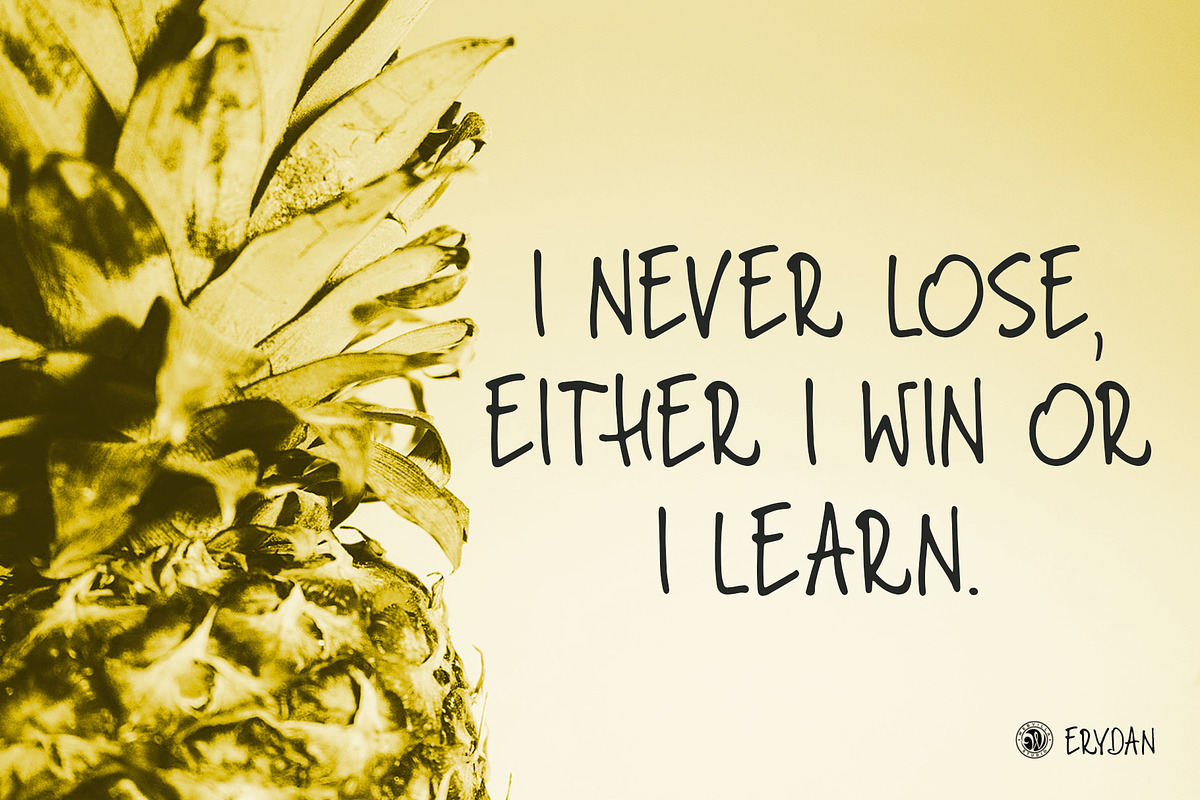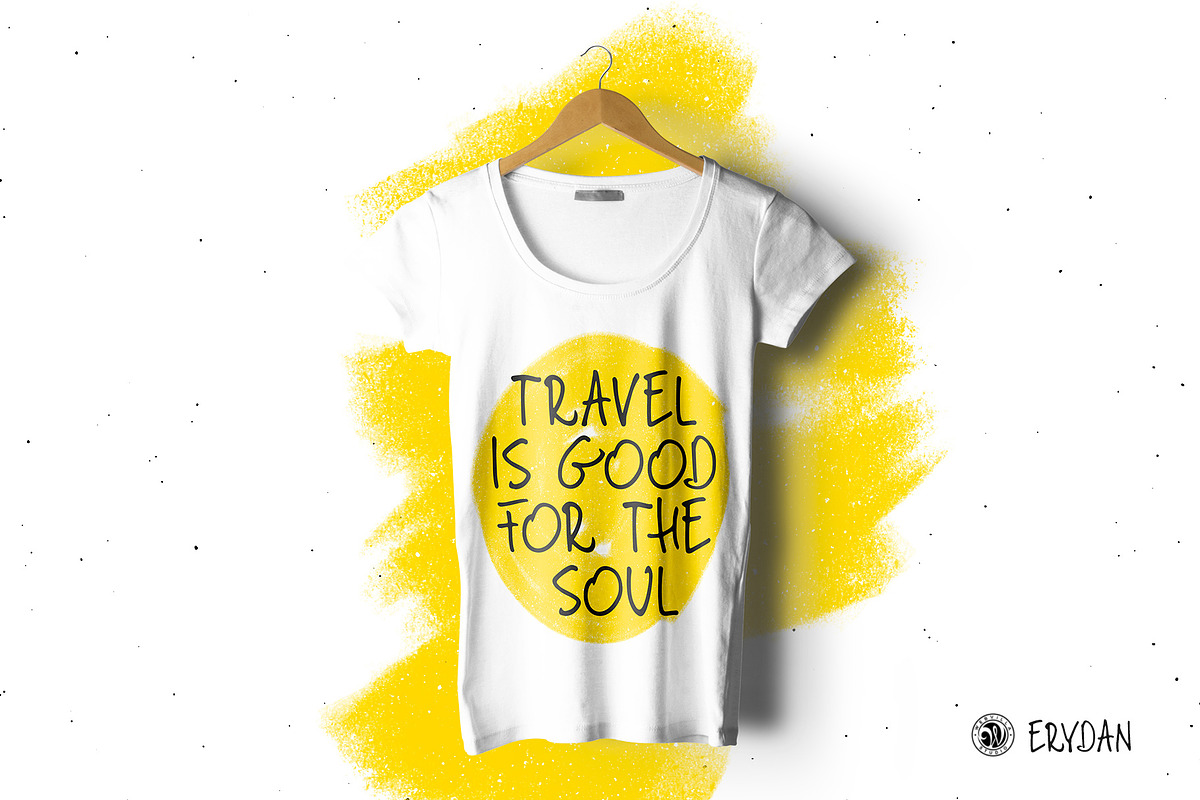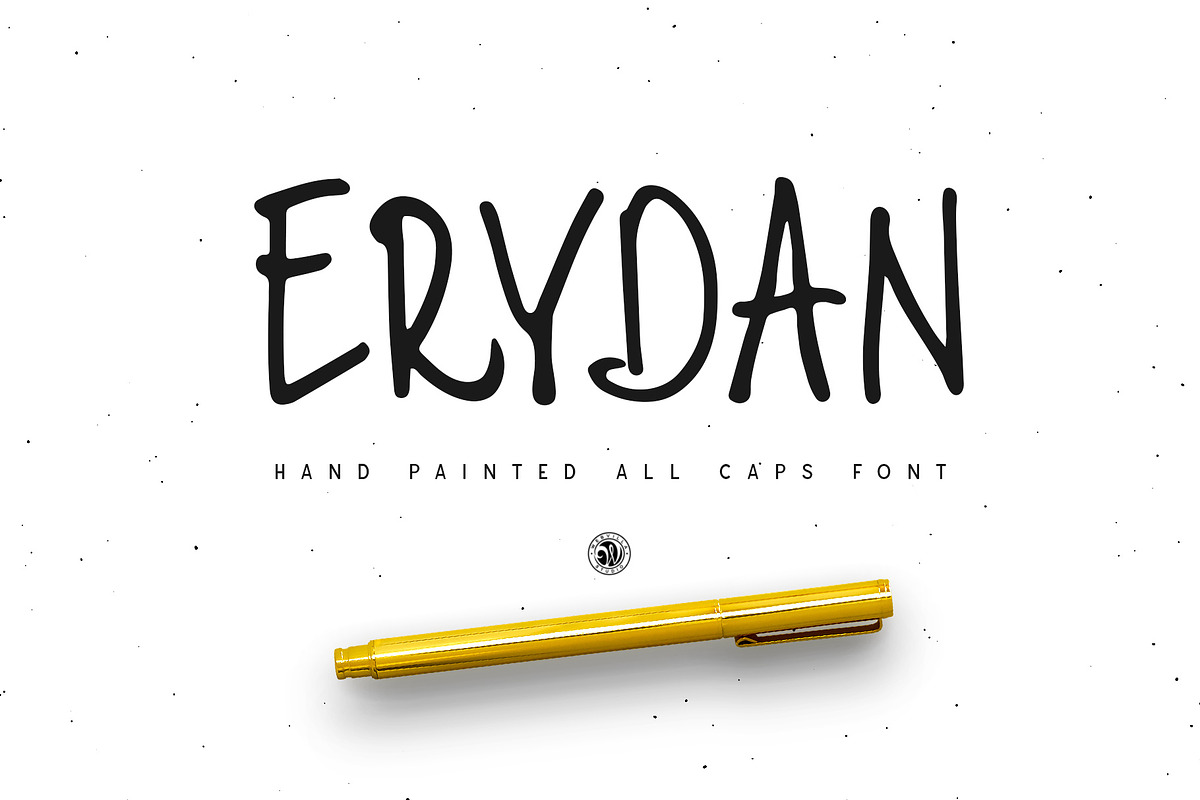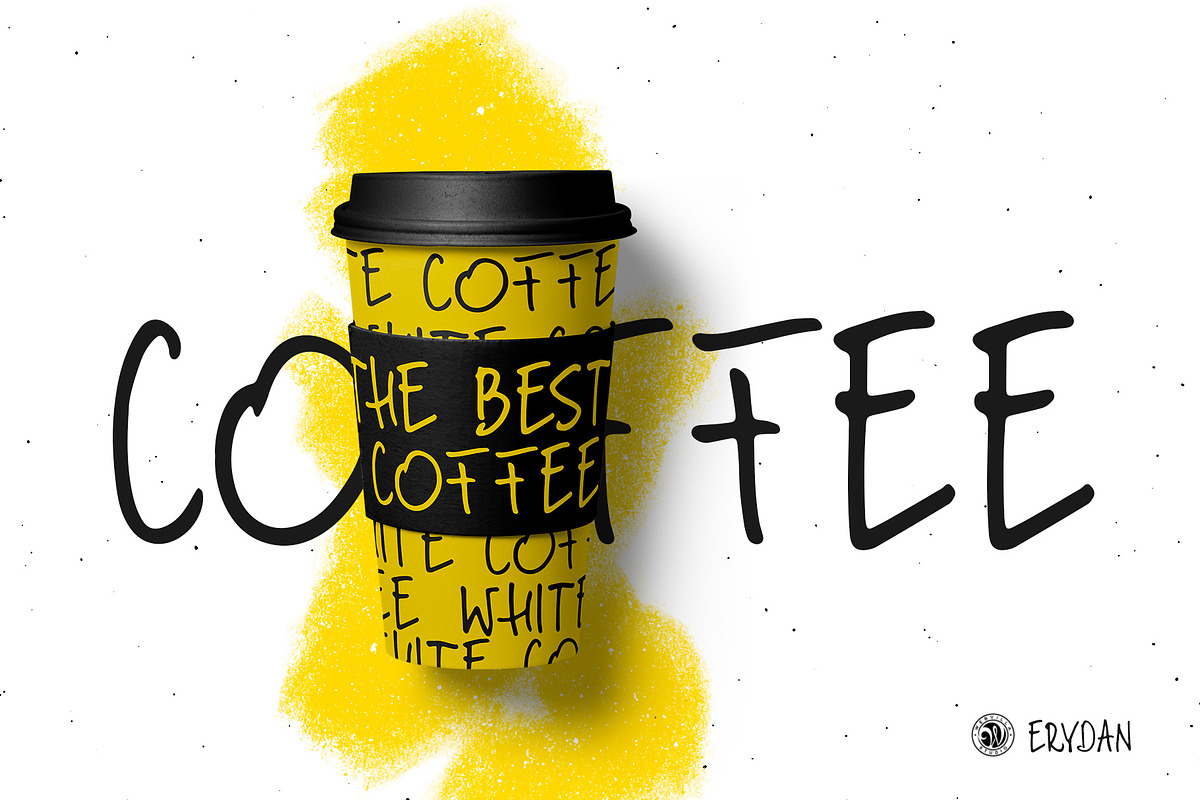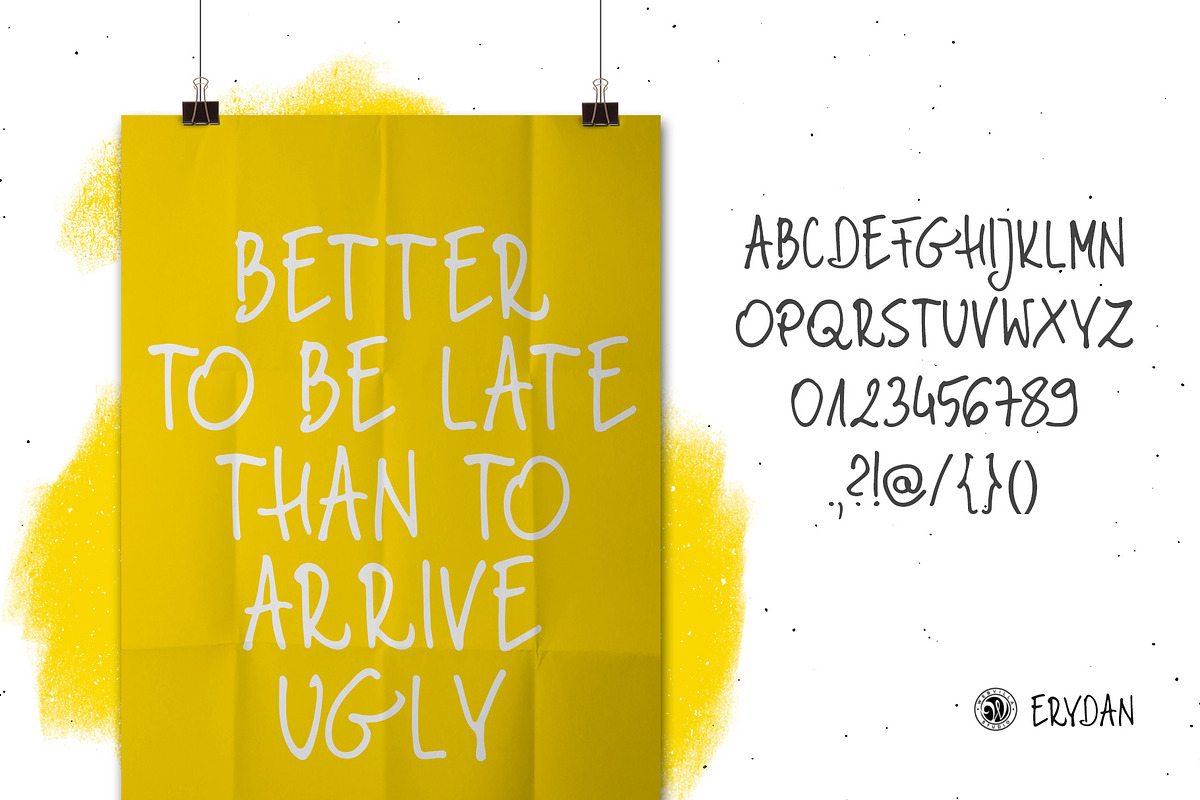
Erydan Font
Erydan font - hand lettering font. Ideal for invitations, logos, branding, blogs, handmade craft items, scrap booking, printed paper items and more.
all caps font, numbers, punctuation
Erydan Font by Webvilla Studio fits naturally into Branding, posters, packaging, typography.